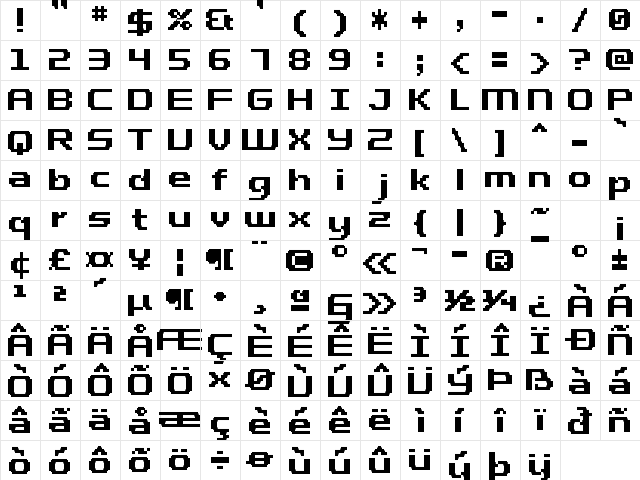
UF PT Factus Bold Regular
| Foundry | Ultrafonts |
| Designer | Hugo Perez of PixieType |
Design Context for UF PT Factus Bold Typeface
UF PT Factus Bold takes a measured approach to typography — its balanced proportions and neutral character make it a reliable workhorse for both digital and print work. Its bold stroke weight gives it real presence on the page.